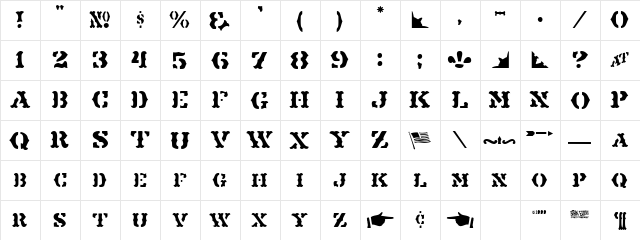
Maverick JL Regular
| Foundry | Jeff's Fonts & Dingbats |
| Designer | Jeff Levine/Brad Nelson |
Design Context for Maverick JL Typeface
Maverick JL is a composed and adaptable typeface that performs quietly and consistently across a wide range of design contexts.